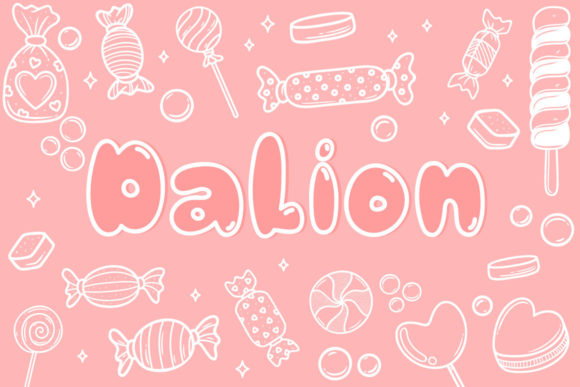
Step into the realm of captivating typography with Dalion Font, a display font that breathes life into your creative endeavors. Designed by the ingenious Nico Muslib, Dalion is a font born from the fusion of elegance, playfulness, and boundless versatility. Its unique charm lies in its ability to transform ordinary words into captivating expressions, adding a touch of whimsy and delight to your designs.
Picture this: a world where your digital creations, presentations, and handcrafted projects radiate with personality. Dalion Font is your magic wand, conjuring smiles and sparking conversations wherever your words appear. Its friendly and bubbly nature makes it the perfect choice for adding a personal touch to invitations, greeting cards, and social media posts.
Unleash your creativity and let Dalion Font ignite your imagination. Whether you're a seasoned designer or just starting your artistic journey, this font will elevate your projects to new heights. Its versatility knows no bounds, adapting seamlessly to a myriad of design styles and themes.
Craft logos that exude modernity and sophistication, leaving a lasting impression on your audience. Create eye-catching headlines that demand attention and leave readers craving more. Transform your presentations into dynamic visual feasts, engaging your audience with every slide. The possibilities are endless, limited only by the depths of your creativity.
With Dalion Font, you're not just downloading a font; you're inviting a partner into your creative process. A partner that will enhance your storytelling, amplify your messages, and make your designs truly unforgettable. Embrace the magic of Dalion Font today and embark on a creative journey that will leave you inspired and your audience captivated.